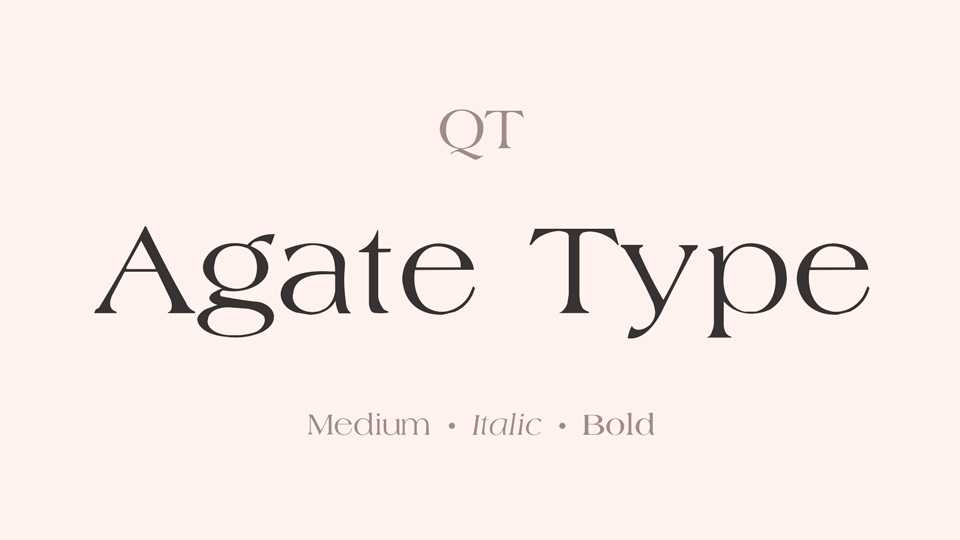
Download Agate Type typeface, an elegant serif font family based on the Americana typeface designed by the artist Richard Isbell in 1965. The generous forms of Agate Type typeface contain large inner spaces.